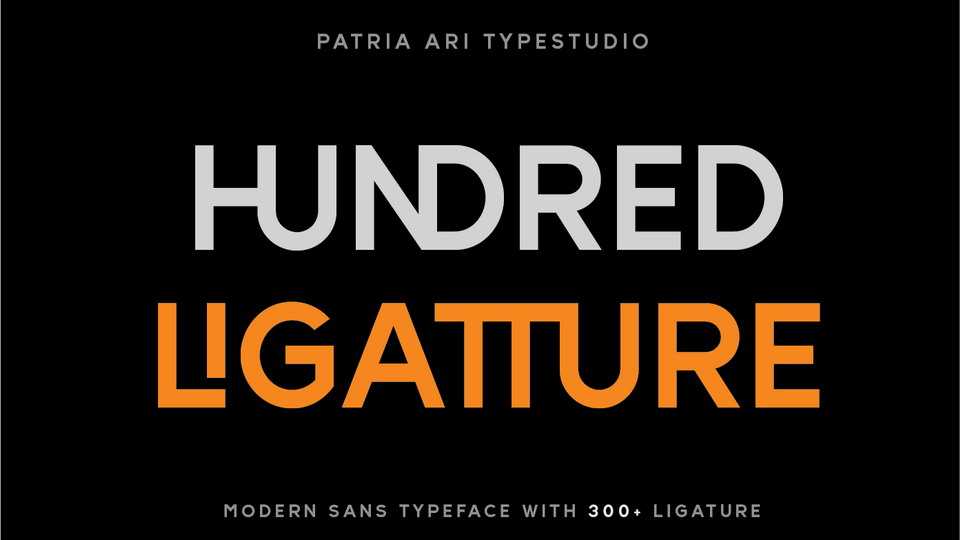
Download Hundred Ligatture font, a modern sans logo typeface with more than 300 discretionary ligatures ready to be combined. Hundred Ligatture is suitable for headlines of all sizes, editorial design, branding, packaging, web and broadcast use, etc.